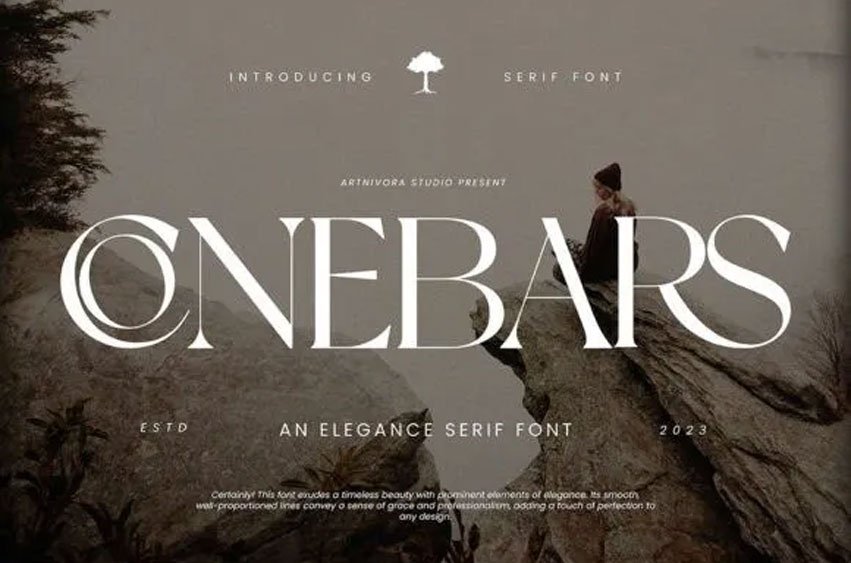
Conebars Font is A classy serif font with a touch of elegance. Perfect for adding a refined and stylish look to your projects. Its simplicity makes it easy to use for various purposes, bringing a touch of sophistication to your designs.